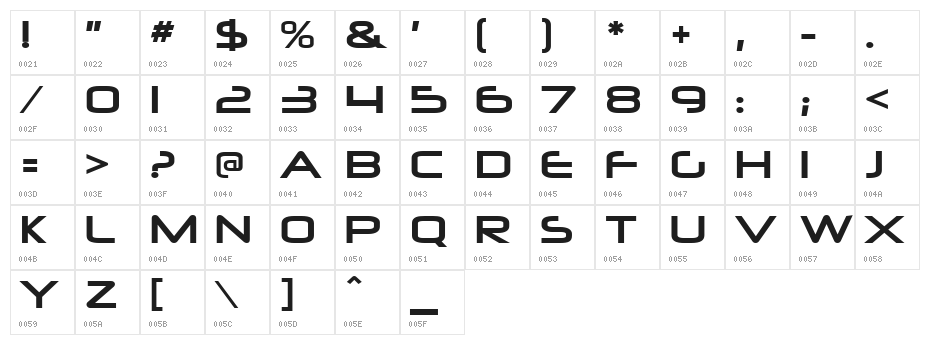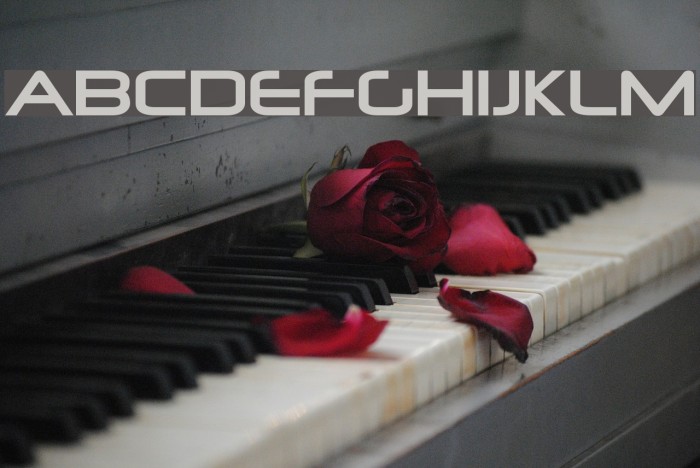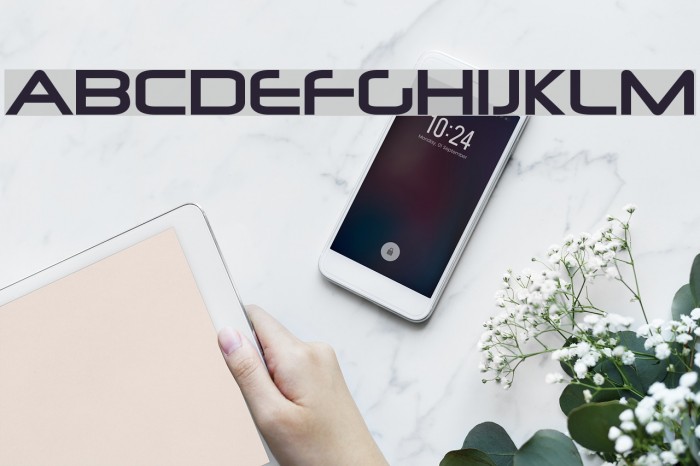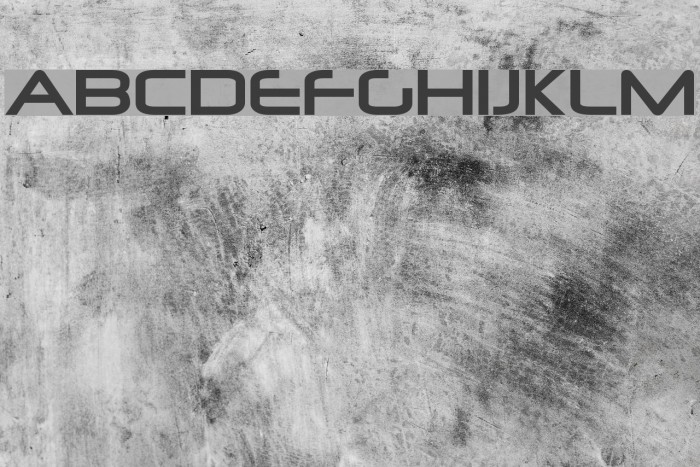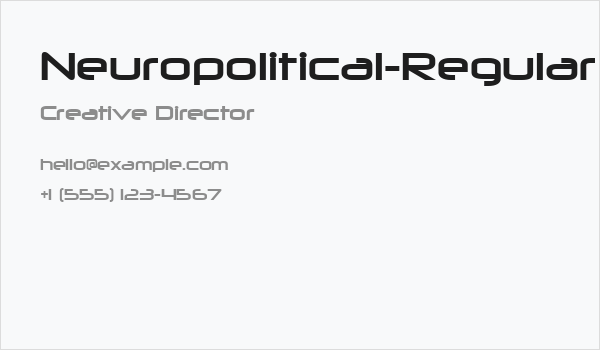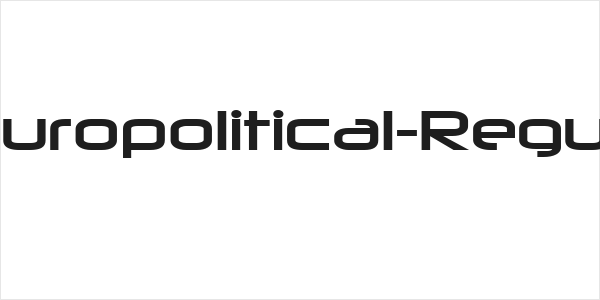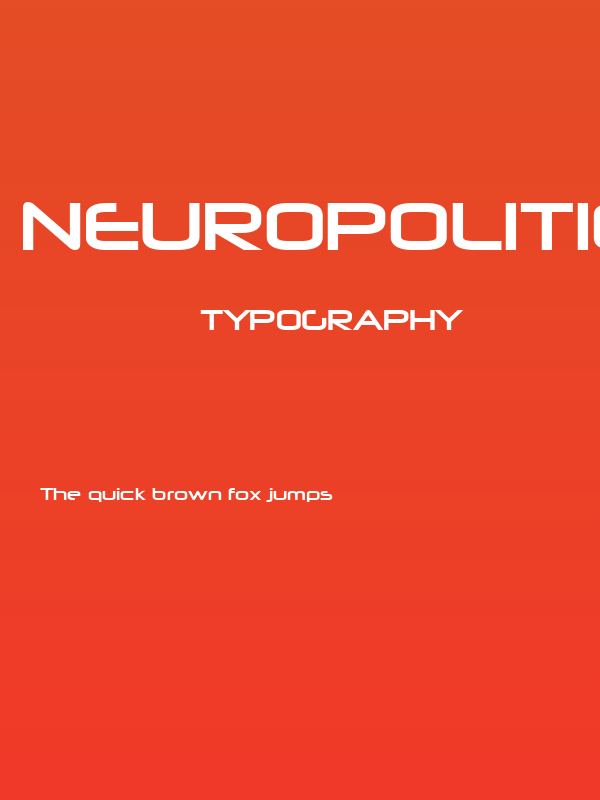
Neuropolitical-Regular Font
Neuropolitical-Regular Description
This font features a futuristic and geometric design, characterized by its clean lines and angular shapes. The uppercase letters are bold and striking, with a consistent height that gives a uniform appearance. The lowercase letters maintain the geometric theme, with rounded edges that add a softer touch to the overall design. The numerals are distinct and easily readable, following the same angular style as the letters. Special characters are well-integrated, maintaining the font's cohesive look. This font is ideal for projects that require a modern and tech-savvy aesthetic.
| Proposed Projects | Ideal for technology branding, sci-fi themed designs, and modern digital interfaces. |